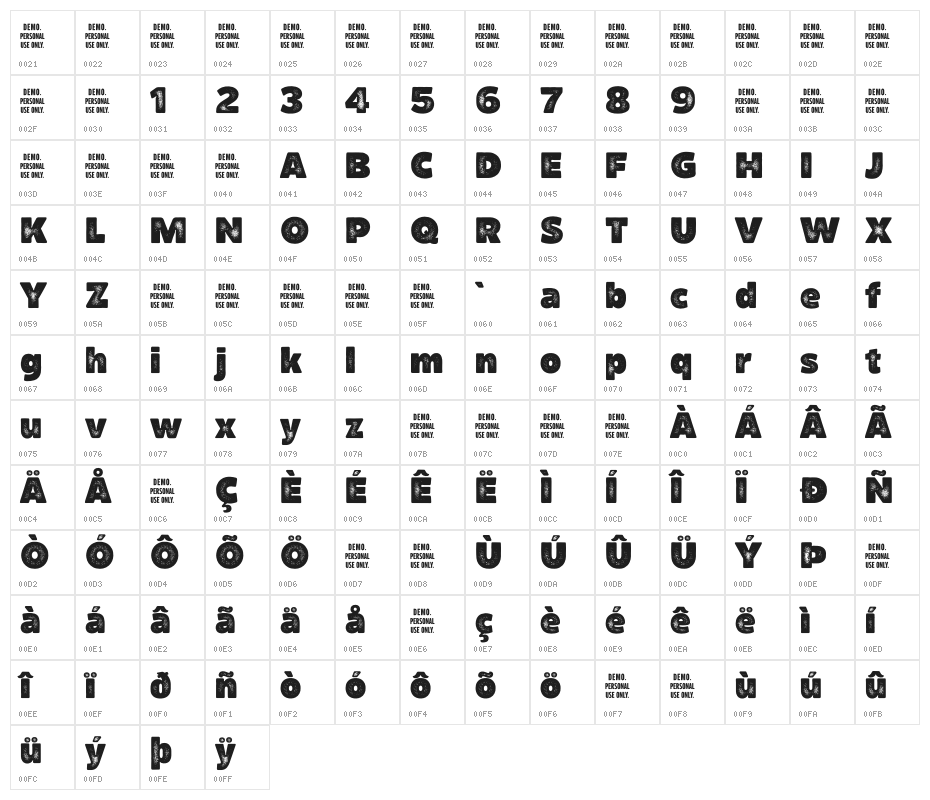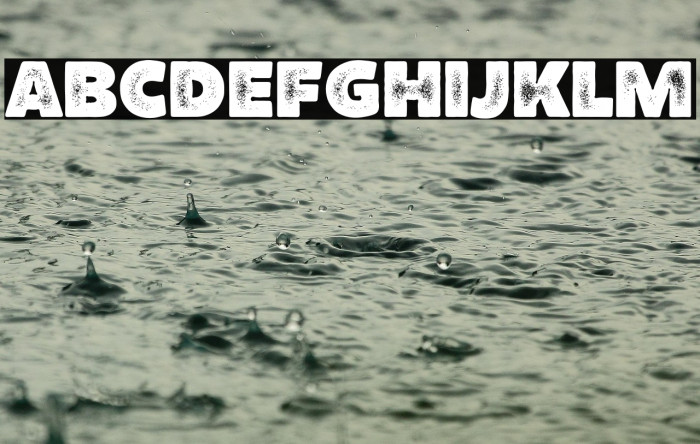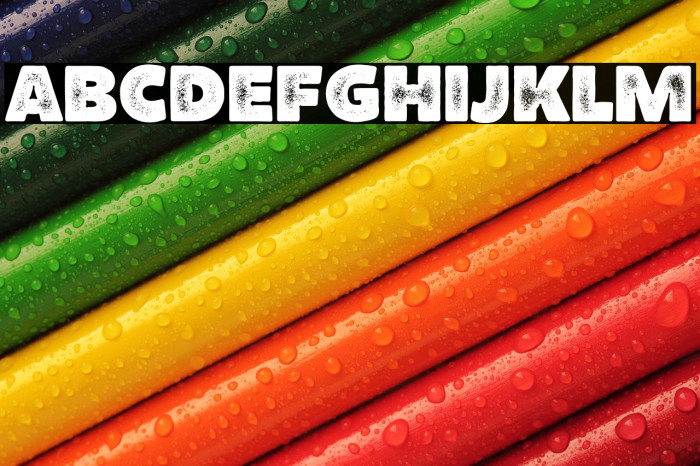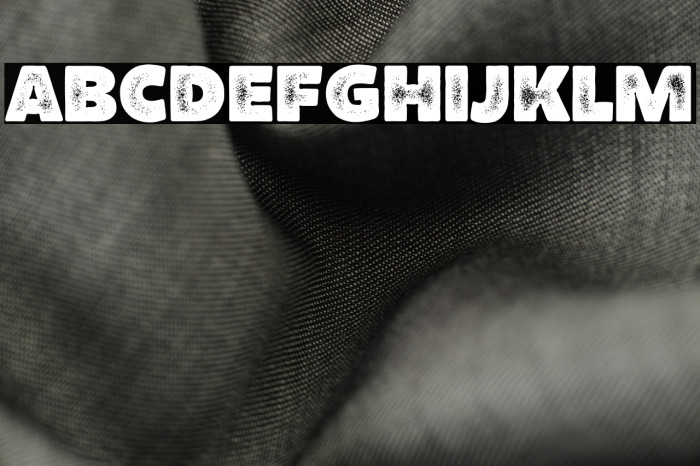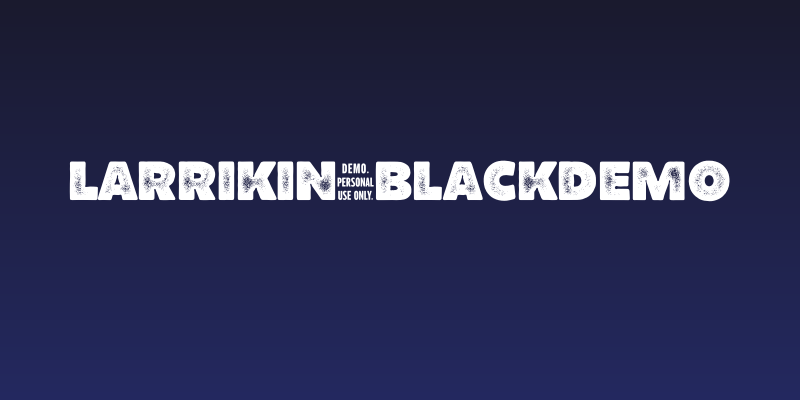
Larrikin-BlackDemo Font
Larrikin-BlackDemo Description
This font features a bold, distressed style with a textured appearance that gives it a rugged and vintage feel. The uppercase and lowercase letters are thick and robust, with a slightly uneven surface that adds character and depth. The numbers follow the same design, maintaining consistency across the character set. The font's unique texture makes it stand out, ideal for designs that require a strong visual impact. Its boldness and distinctive style make it suitable for creative projects that aim to convey a sense of adventure or nostalgia.